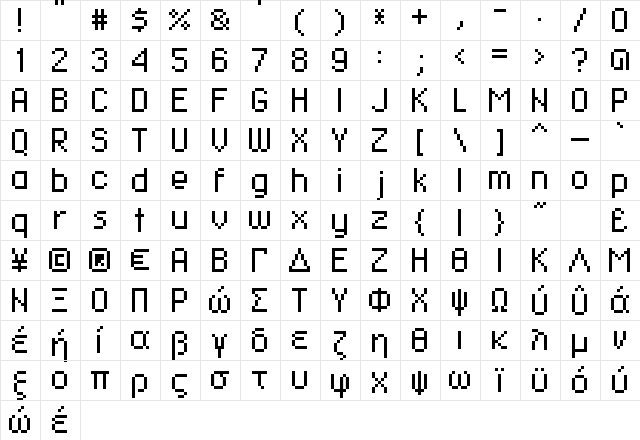
RaxelGreek Regular
Design Context for RaxelGreek Typeface
RaxelGreek takes a measured approach to typography — its balanced proportions and neutral character make it a reliable workhorse for both digital and print work.